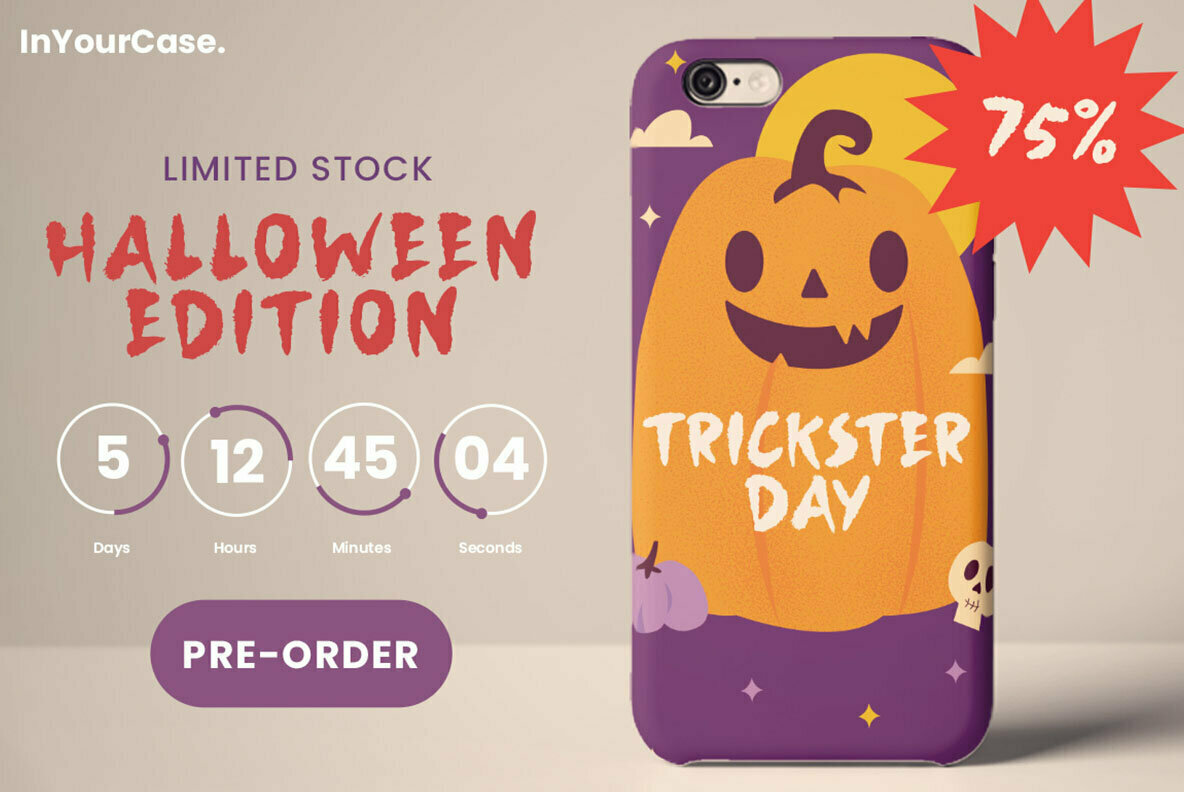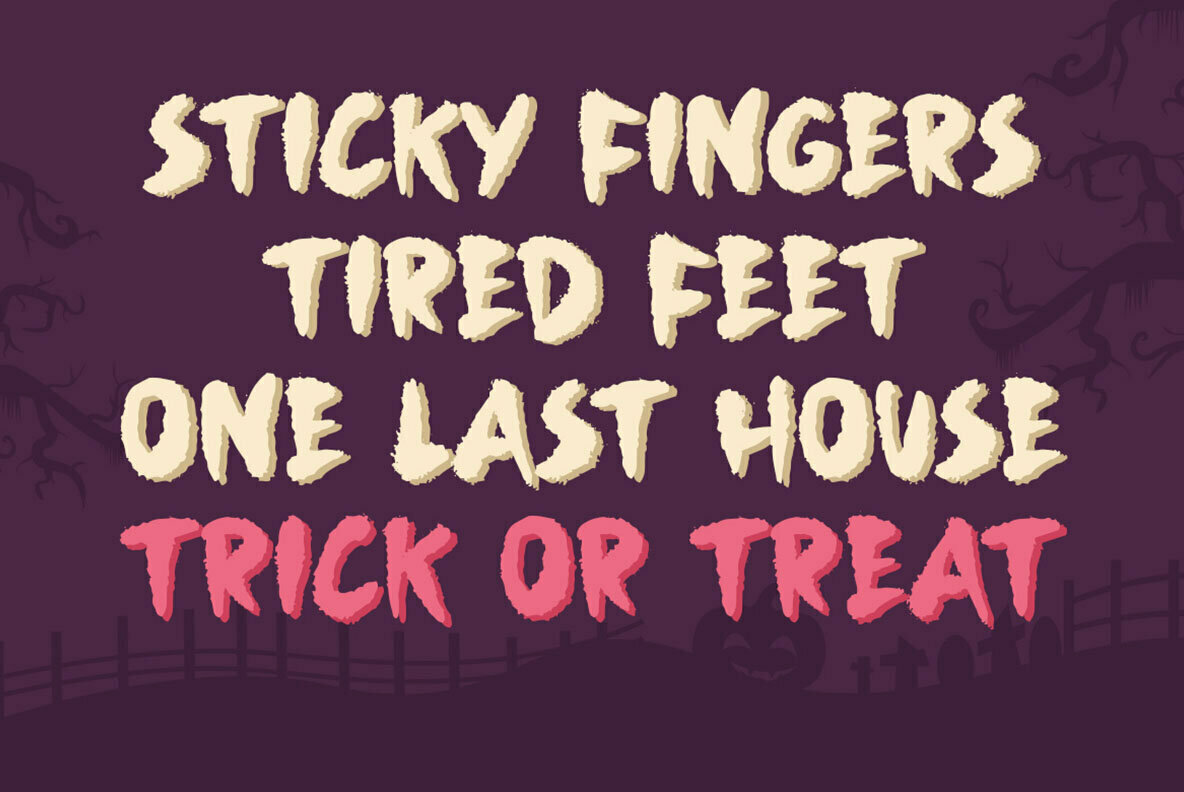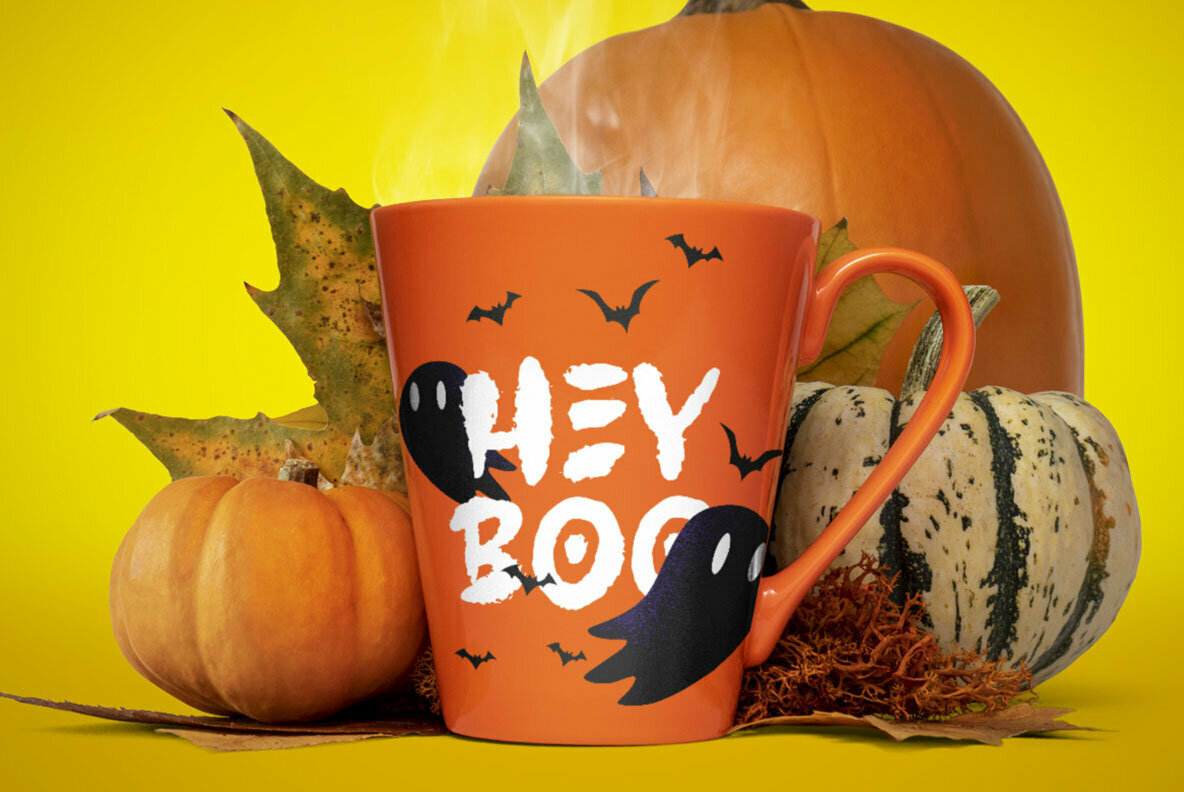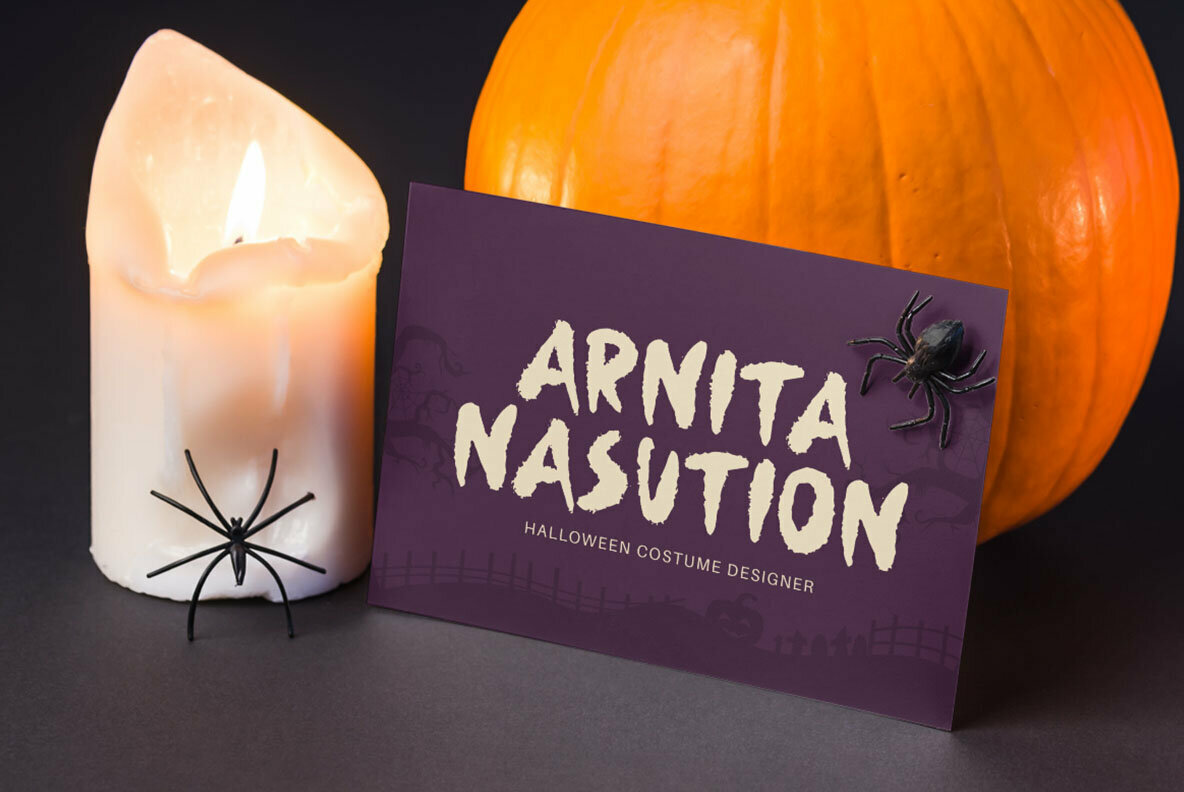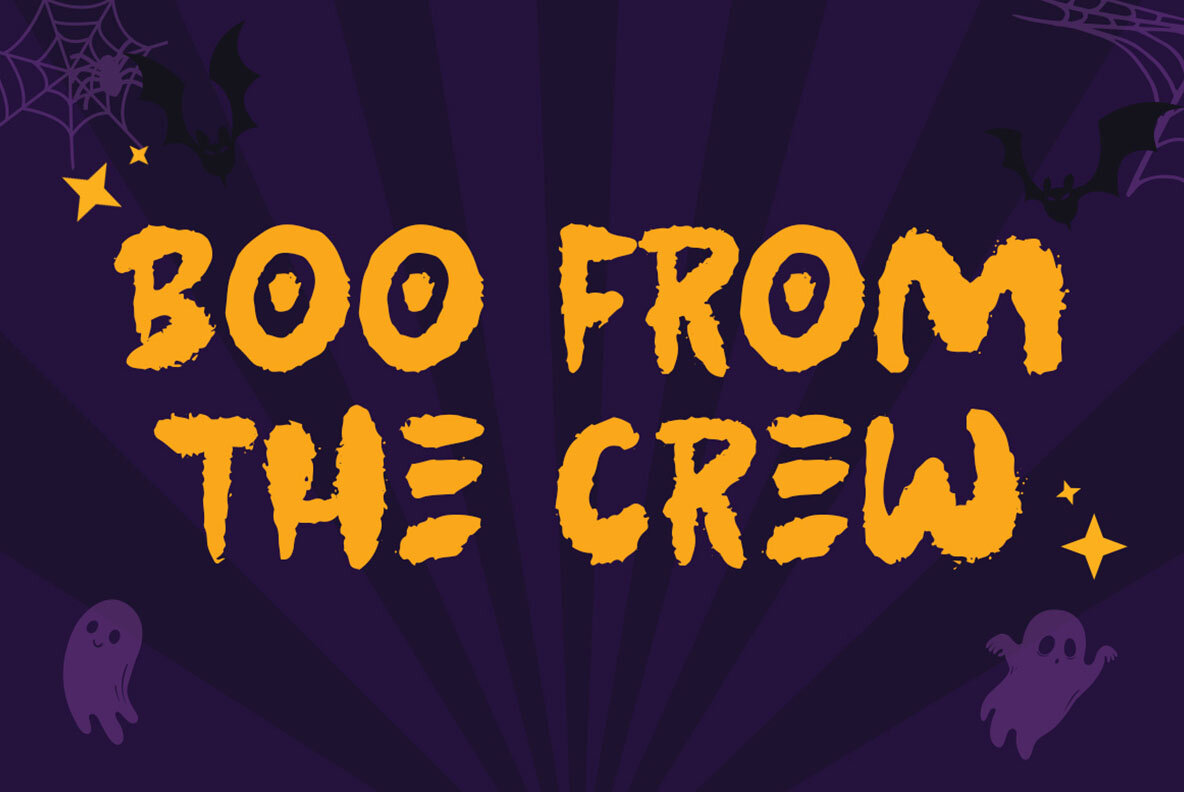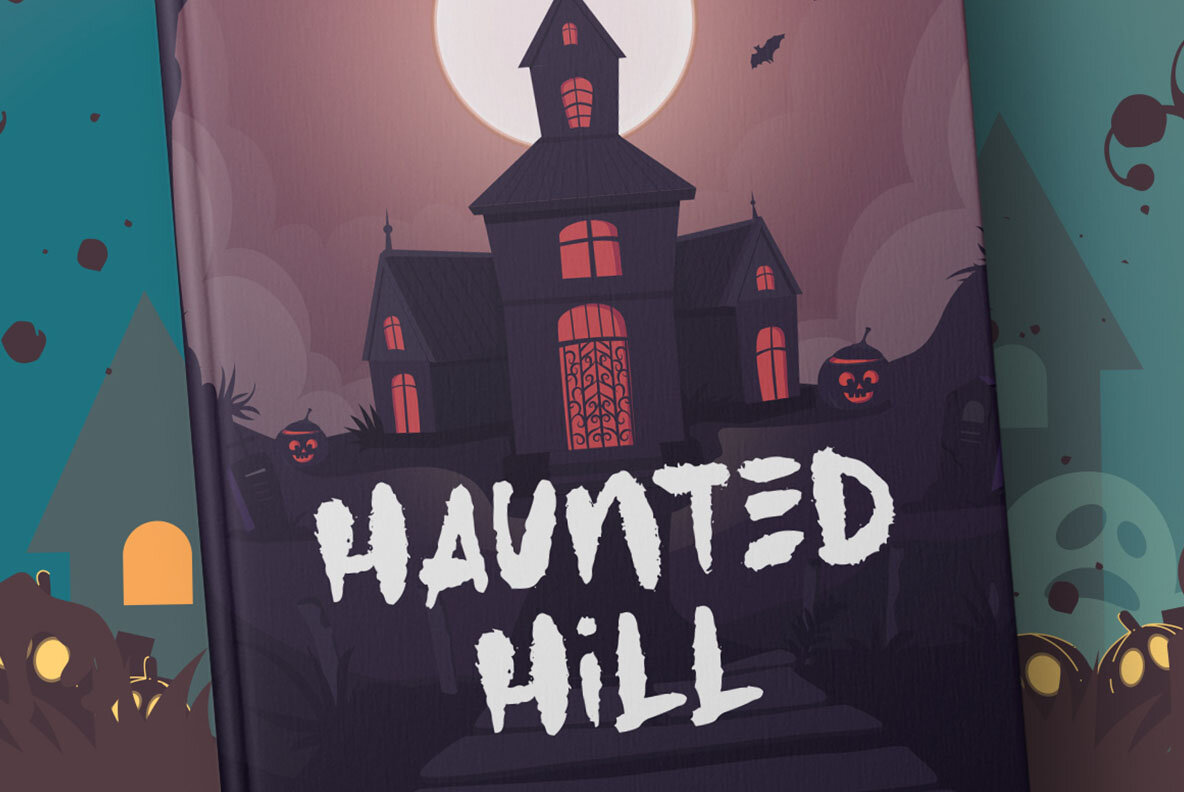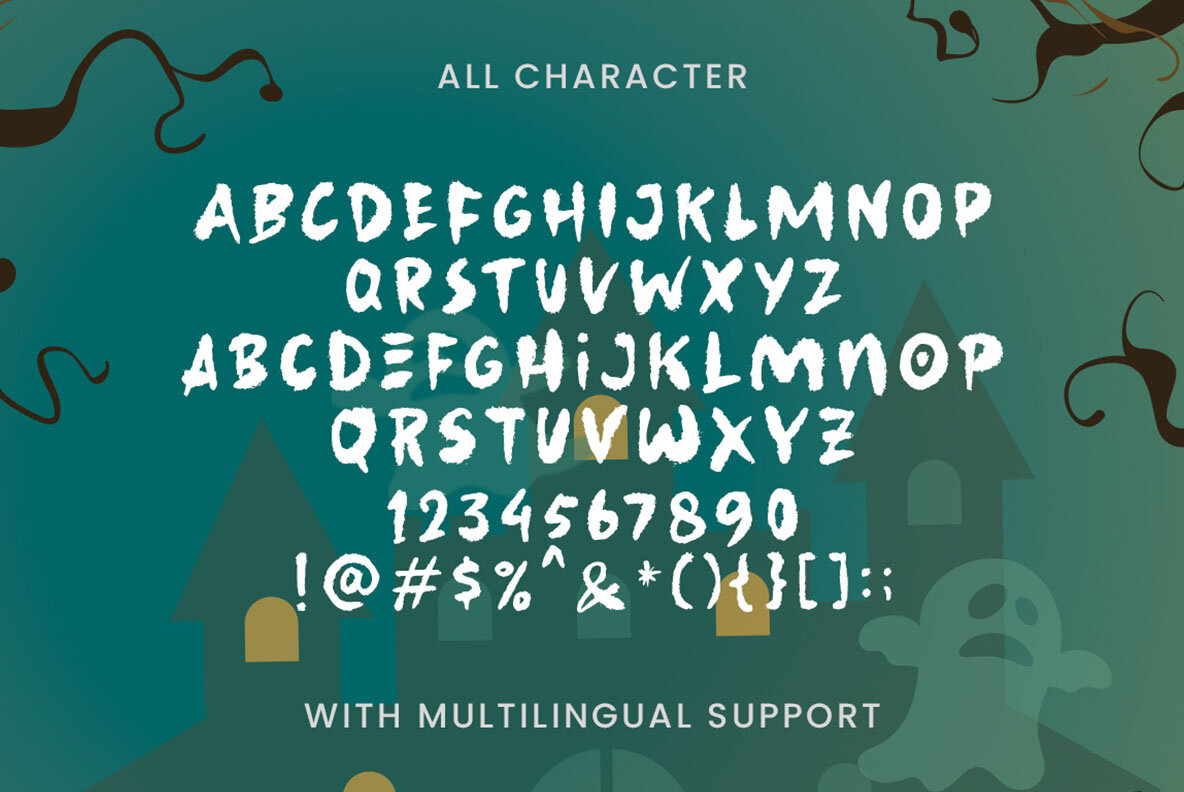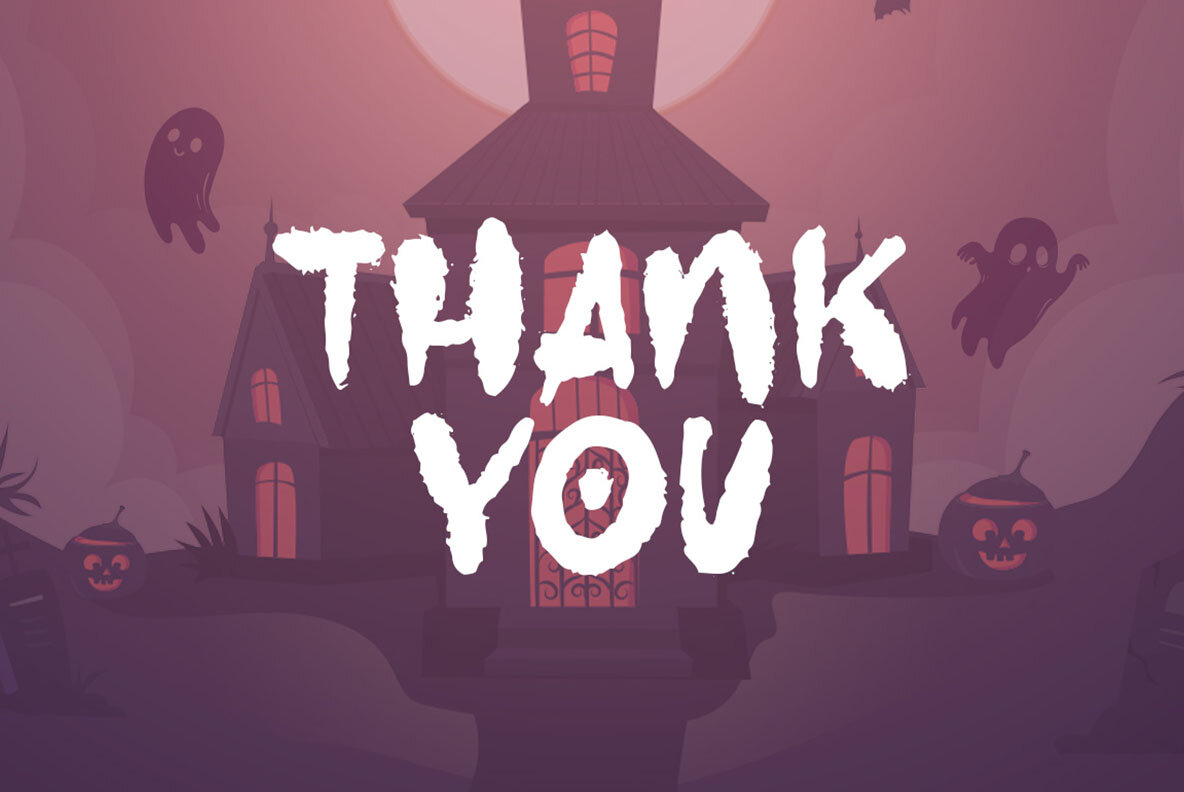
Beast Party Font
Beast Party
Beast Party by Letterhend Studio introduces a whimsical touch to design projects, particularly shining in Halloween-themed compositions. This font is well-suited for creative applications, providing a distinctive flair for visual presentations. Its bold character makes it a preferred choice for children's media, whether for films or playful literature. Additionally, it thrives in various creative contexts, from invitations to branding, lending an energetic charm. Features:Beast Party: A Playful Spookish Typeface